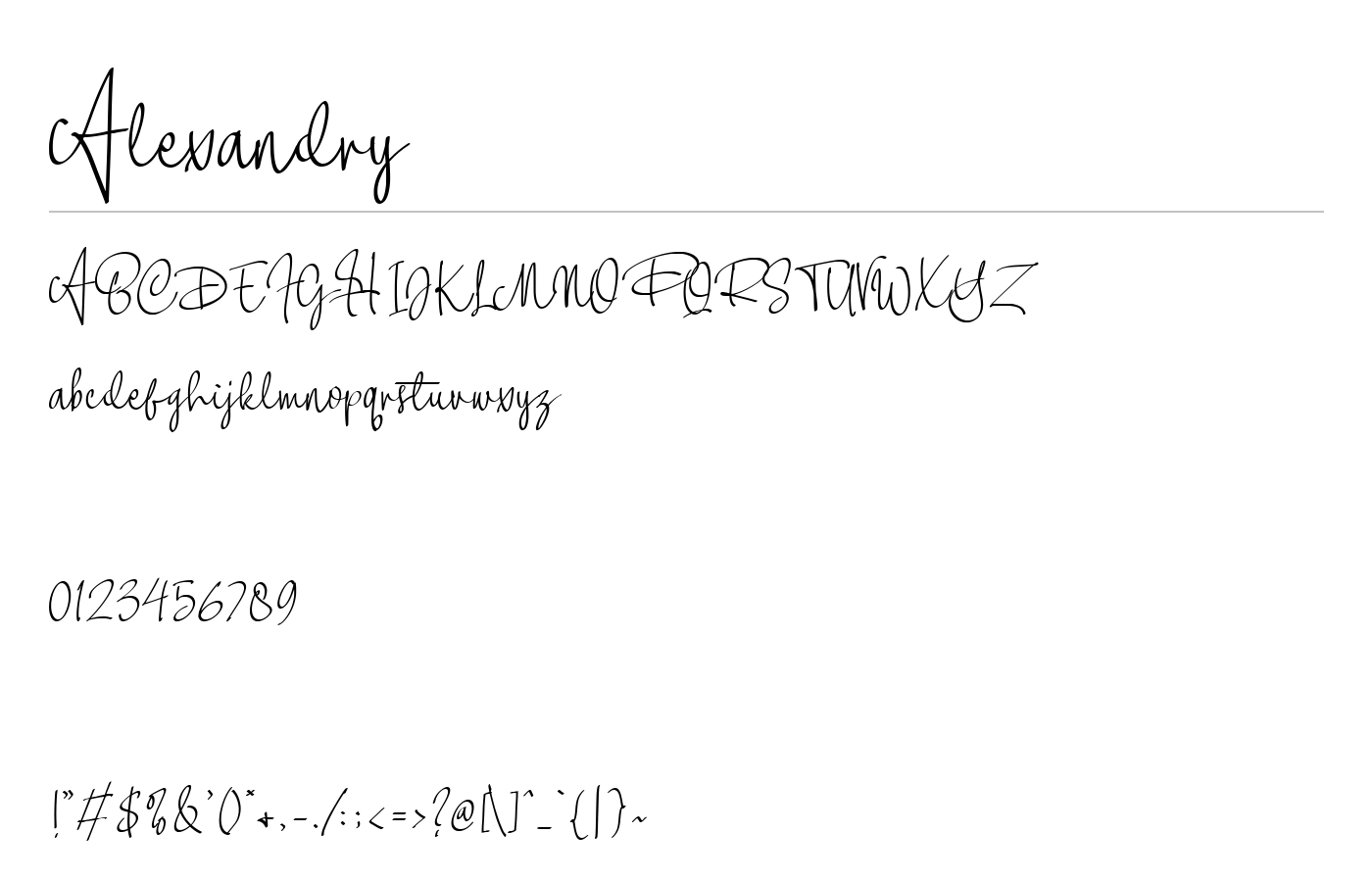
Alexandry is a delicate, handwritten script font with an airy and elegant feel. Its thin, flowing strokes and slightly irregular shapes give it a personal and creative touch, making it ideal for invitations, branding, and artistic projects that seek a refined yet approachable style. This font works well in contexts that benefit from a sophisticated, intimate atmosphere, such as fashion, beauty, or boutique designs.
Alexandry Font